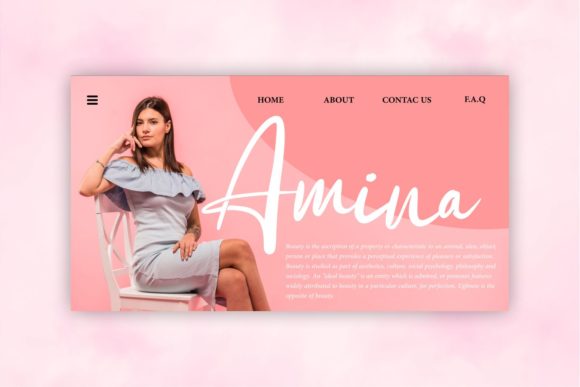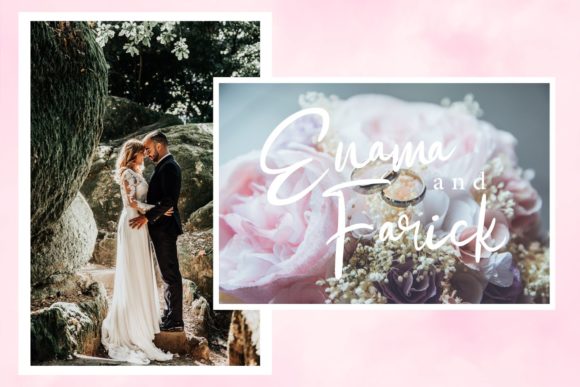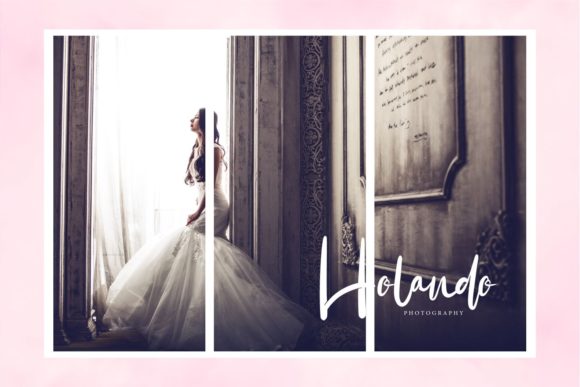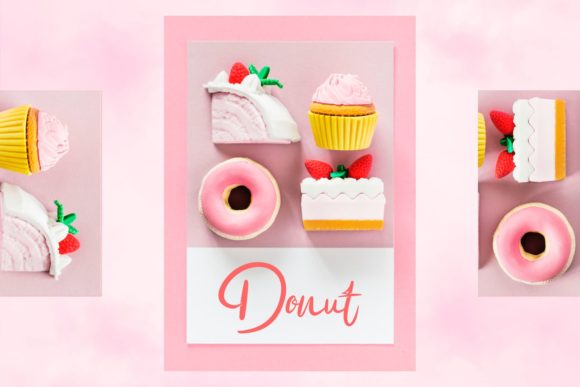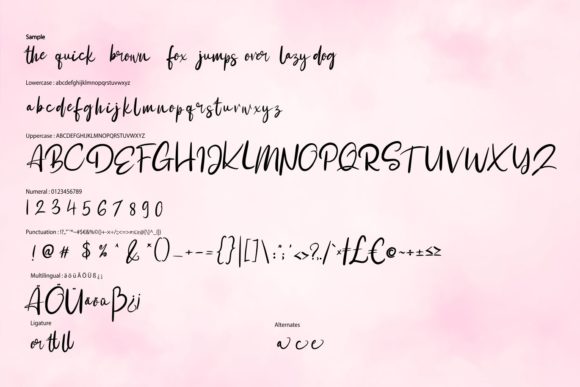
The Perfect Blend of Classic and Modern: Britney Font
You know that moment when a font just clicks and you can see your entire design project come together? For designers, it’s a feeling like no other – the perfect blend of creativity and precision. For many, that moment has arrived with the introduction of Britney Font, a modern homage to classic calligraphy.
Britney Font is more than just a stylish addition to your design toolkit; it’s a way to add an authentic, timeless vibe to any project. Whether you’re working on a wedding invitation, a branding campaign, or a social media post, Britney Font is the perfect companion to help you craft a look that’s both elegant and approachable.
For designers looking to elevate their work and make a lasting impression, the Britney Font is a valuable asset. Its unique blend of classic and modern elements makes it a versatile choice that’s sure to please even the most discerning clients.
- Unique Characteristics: This script font features elegant, flowing lines and a touch of femininity, making it perfect for invitations, wedding stationery, and other feminine designs.
- Font Style: Script, Casual
Britney Font Review
Overall, I found the Britney Font to be a stylish and attention-grabbing choice for various design projects. ✨ Its playful and feminine feel makes it perfect for fashion, beauty, and lifestyle brands.
The font’s unique character set and creative flair make it stand out from more traditional font options. ✨ I particularly enjoy the way it adds a touch of whimsy to digital products, like website headers and social media graphics.
- Unique and feminine feel
- Perfect for fashion, beauty, and lifestyle brands
- Attention-grabbing and stylish
- May not be suitable for corporate or formal designs
- Not ideal for small text or body copy
- Can be overwhelming if used excessively
- ⚠️ Some users may find the font too ornate or busy
Overall, I think the Britney Font is a great choice for designers looking to add a touch of personality and flair to their projects. While it may not be suitable for every design task, it’s definitely a valuable addition to any font library.
The Britney Font is commonly used in:
- Branding and logo design.
- Social media graphics and advertisements.